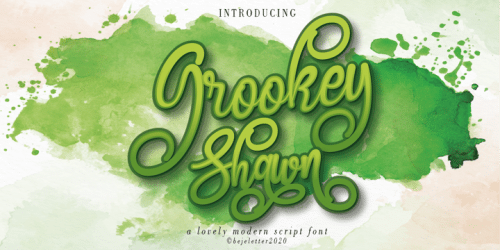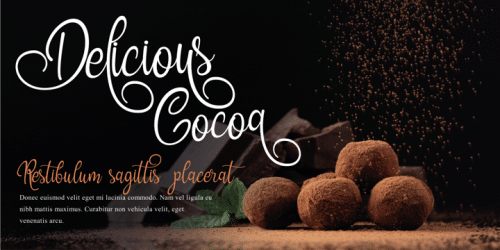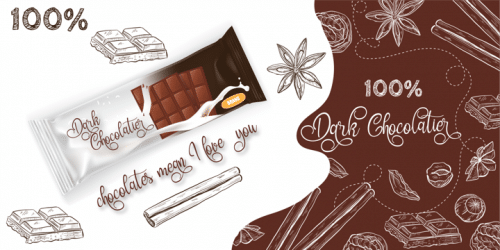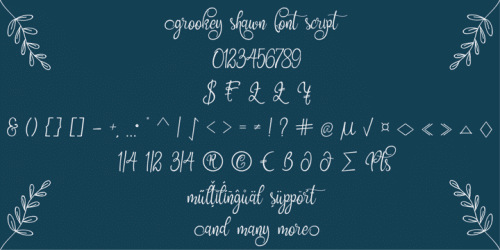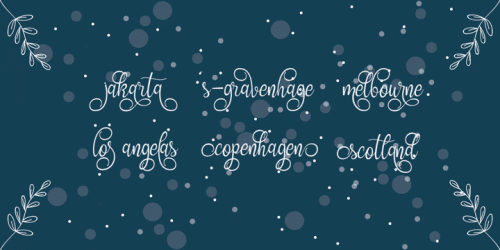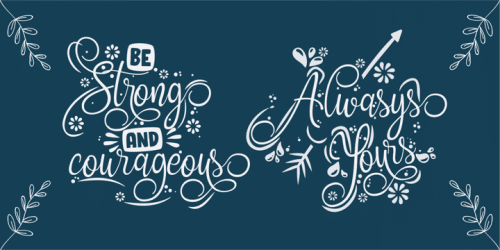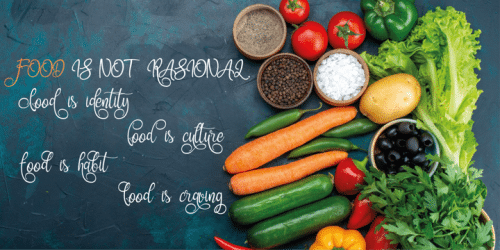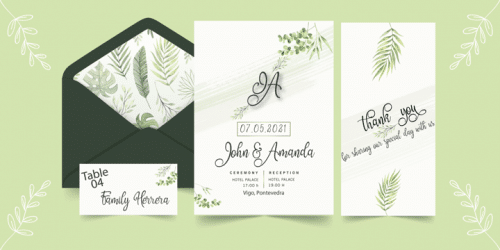
Grookey Shawn is a calligraphy script font with many letter styles. This font consists of 4 to 6 alternatives, this combination creates a stunning font style.
Feel free to combine a variety of alternatives, you will see a different look for each combination. This font is suitable for anything from new year greeting, invitation, promotional material and handwritten quotes, to product packaging, merchandise and branding projects and more. We also include swashes and ligatures to support the creation of logotypes.